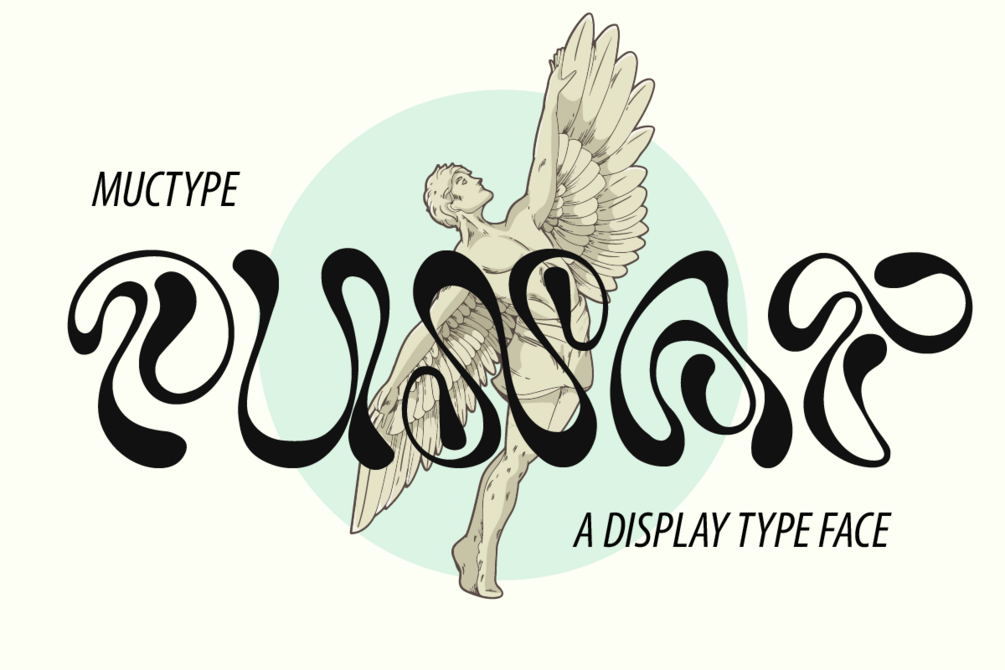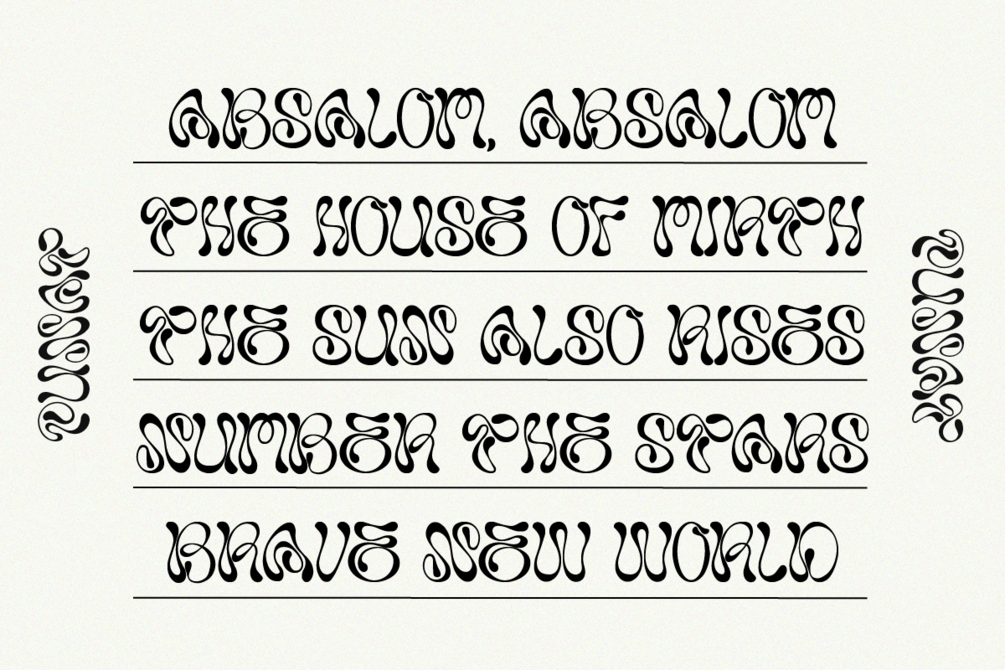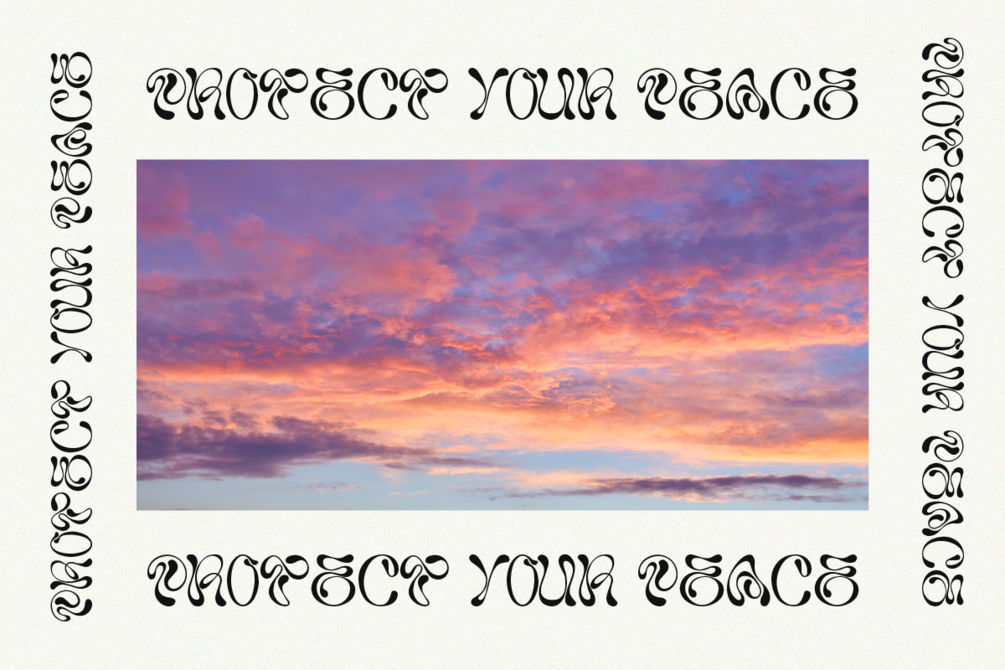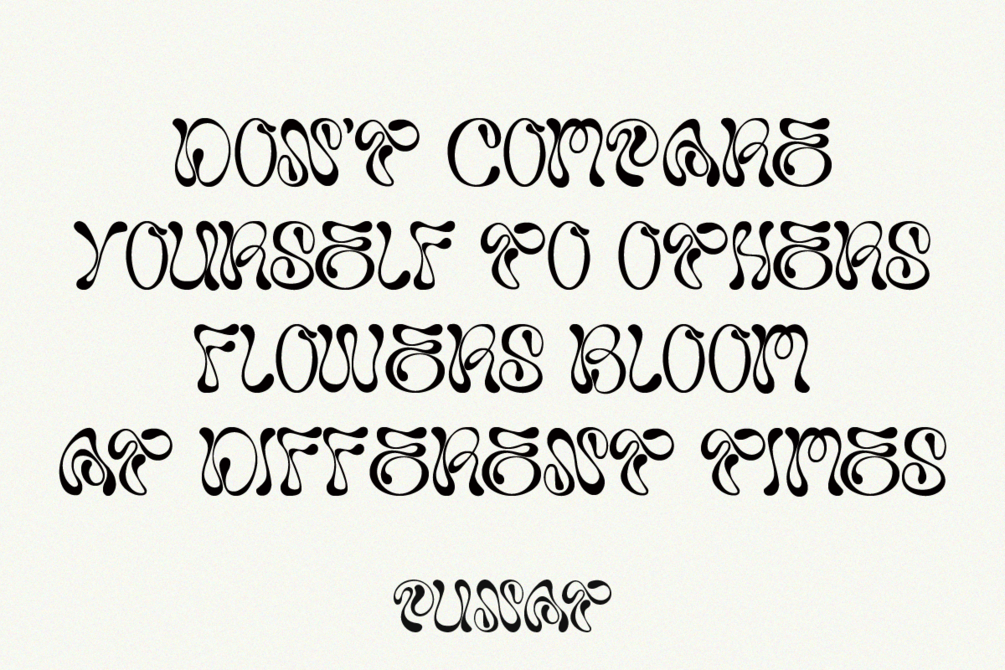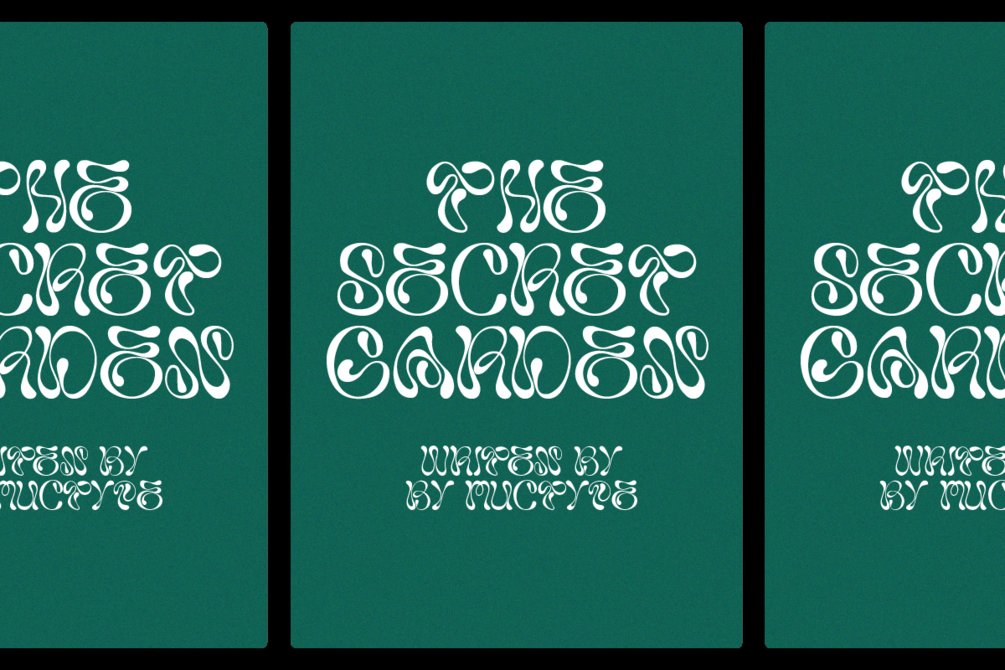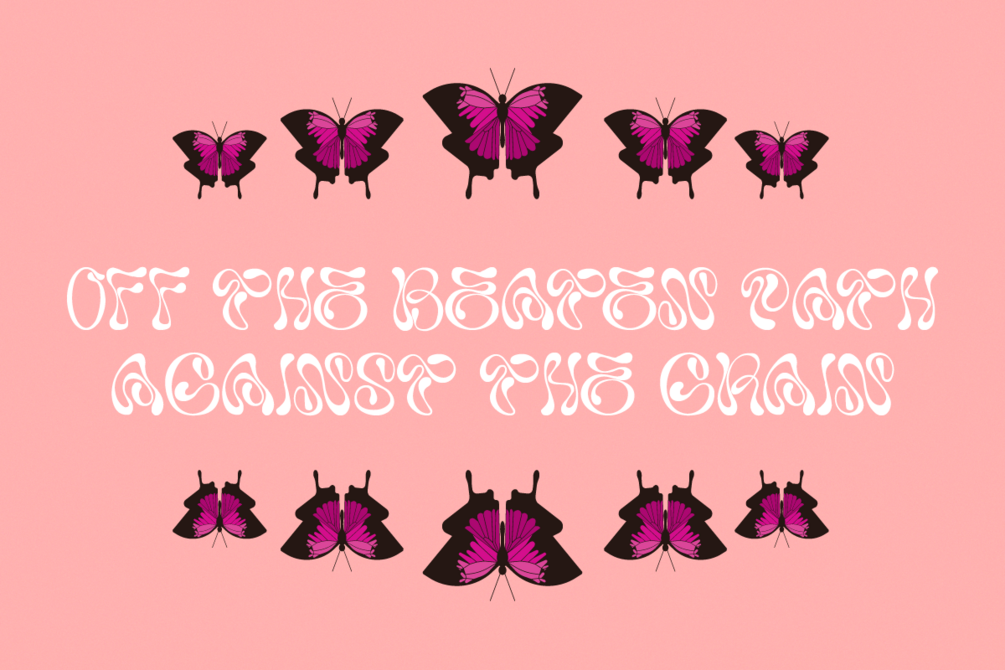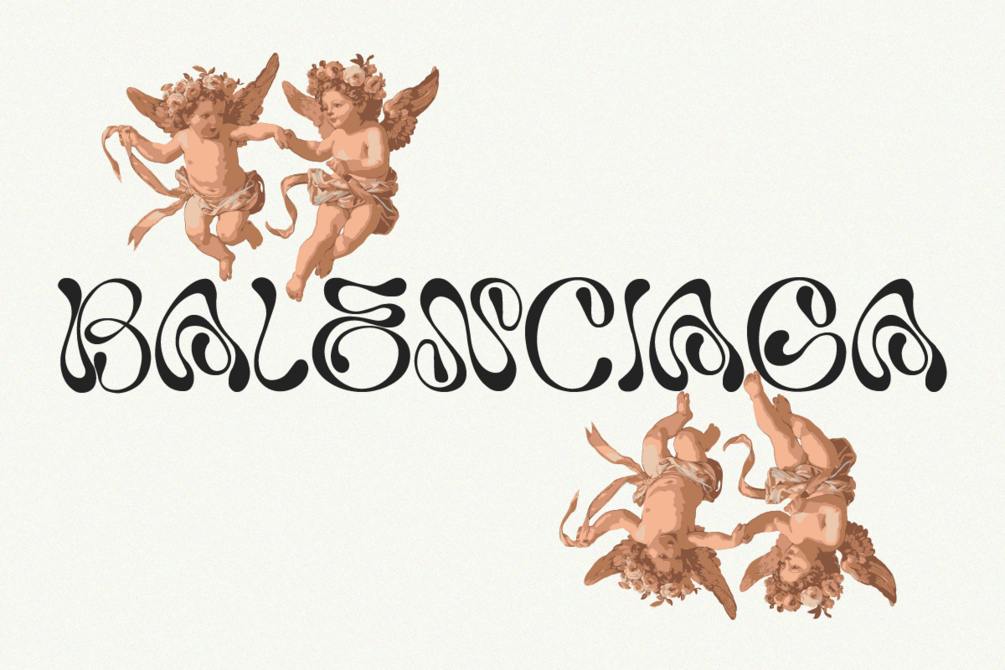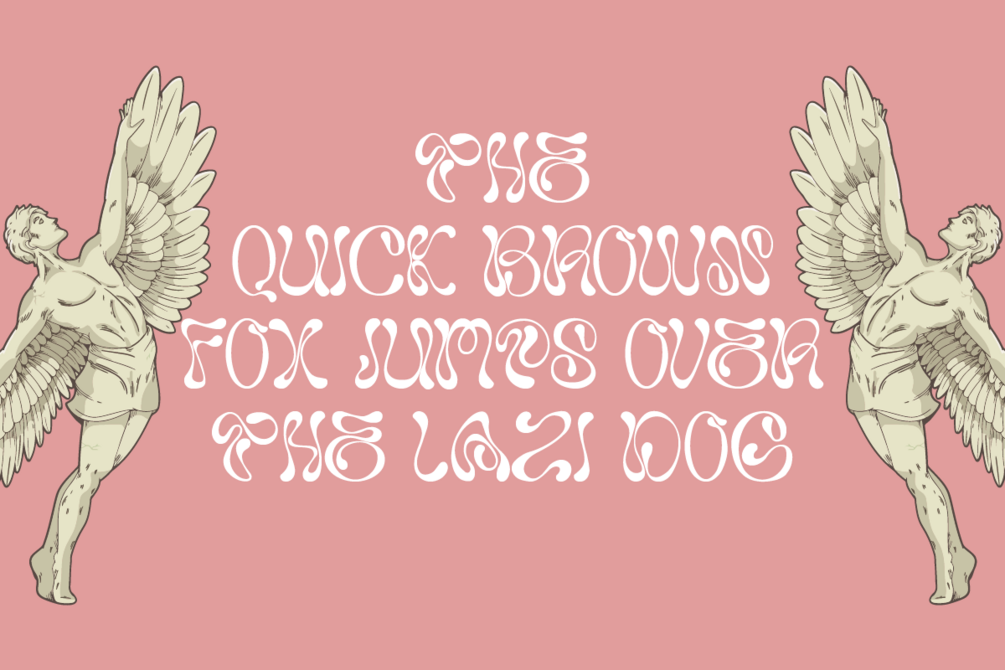
Punat
Punat – Psychedelic Display Typeface by Muctype
Punat is a mind-bending psychedelic display typeface that dances between art and chaos. With its fluid curves, distorted forms, and hypnotic rhythm, this typeface evokes the spirit of 1960s counterculture and modern surrealism. Each letter feels like it’s alive—morphing, melting, and moving with every glance.
Perfect for experimental posters, music festival branding, retro-futuristic visuals, or any project that craves a touch of bold eccentricity, Pulsar doesn’t just speak—it sings in visual waves.
Let your typography trip with Punat.